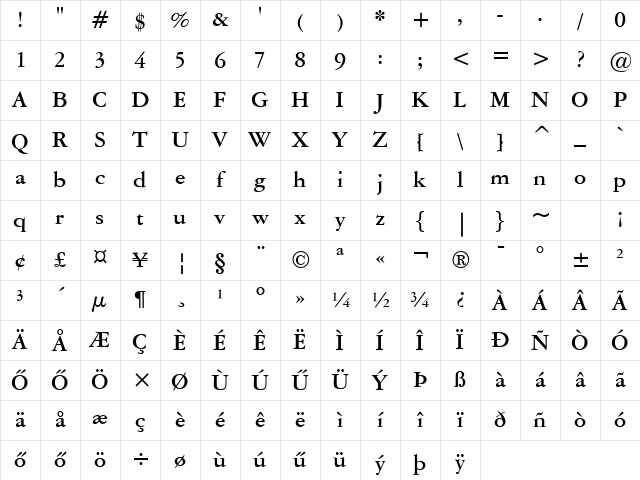
Complete American-Garamond HU Bold glyph index. Displaying only characters natively supported by American-Garamond HU Bold font.
American-Garamond HU is a composed and adaptable typeface that performs quietly and consistently across a wide range of design contexts. Its bold stroke weight gives it real presence on the page.